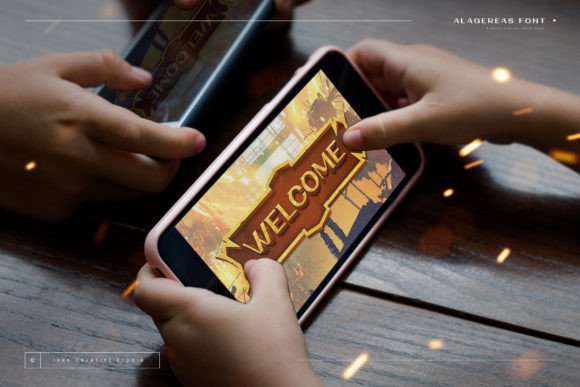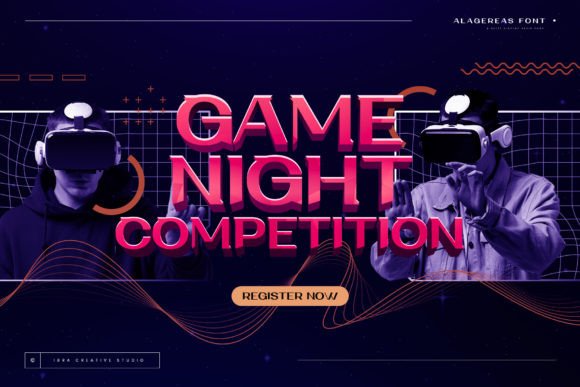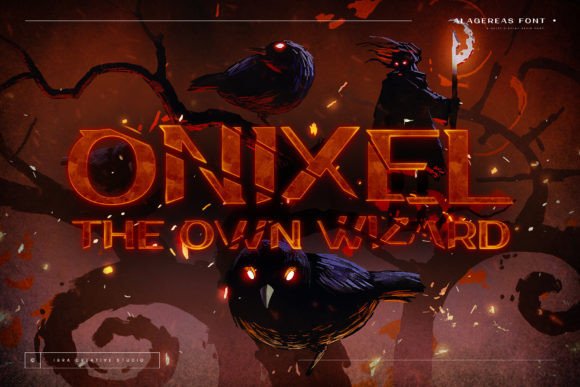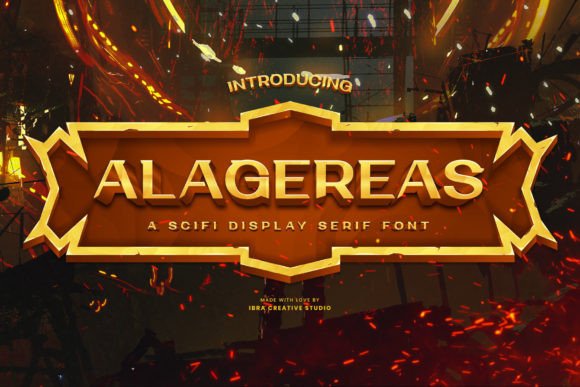
I still remember the frustration of working on a project, pouring my heart and soul into every detail, only to hit a roadblock: finding the perfect font. My client wanted something that screamed futuristic and high-tech, but also had a touch of sophistication. I scoured the internet, tried out countless fonts, but nothing seemed to fit the bill. That was until I stumbled upon Alagereas, a captivating Sci-Fi Display Serif font that changed the game.
First Impressions: A Love Affair with Alagereas
Alagereas is more than just a font – it’s an experience. Its sleek and angular letterforms exude a sense of technological advancement and avant-garde elegance. I was immediately drawn to its unique blend of futuristic aesthetics and timeless sophistication. Here are some things I love about Alagereas:
- ✨ Futuristic yet sophisticated: Alagereas seamlessly blends modern and classic elements, making it perfect for designs that require a touch of futurism.
- ✅ Highly legible: Despite its sleek and angular design, Alagereas remains highly legible, even at smaller font sizes.
- 💻 Perfect for digital interfaces: Alagereas is designed with digital interfaces in mind, making it ideal for immersive designs, space-themed projects, and cutting-edge editorial layouts.
The Not-So-Perfect Font: A Few Quirks
While Alagereas is an amazing font, it’s not without its limitations. Here are a few things to keep in mind:
- 🤔 Limited use in body text: Due to its sleek and angular design, Alagereas may not be the best choice for body text. It’s better suited for headings and titles.
- ⚠️ Requires careful kerning: As with any font, kerning is crucial to ensuring Alagereas looks its best. Be prepared to adjust the kerning to achieve the desired effect.
The Story Behind Alagereas
Alagereas was designed by a team of typographers who wanted to create a font that captured the essence of science fiction and futurism. Inspired by classic Sci-Fi movies and books, they set out to create a font that was both modern and timeless. The result is Alagereas, a font that’s perfect for designers who want to add a touch of futurism to their designs.
| What is Alagereas? | Alagereas is a Sci-Fi Display Serif font designed for maximum impact and versatility. |
| What is Alagereas best used for? | Alagereas is perfect for immersive digital interfaces, space-themed designs, and cutting-edge editorial layouts. |
| Can I use Alagereas for body text? | While Alagereas is highly legible, it’s better suited for headings and titles. For body text, consider using a more traditional serif font. |
| Is Alagereas available in different weights? | Yes, Alagereas comes in several weights, making it versatile for different design applications. |